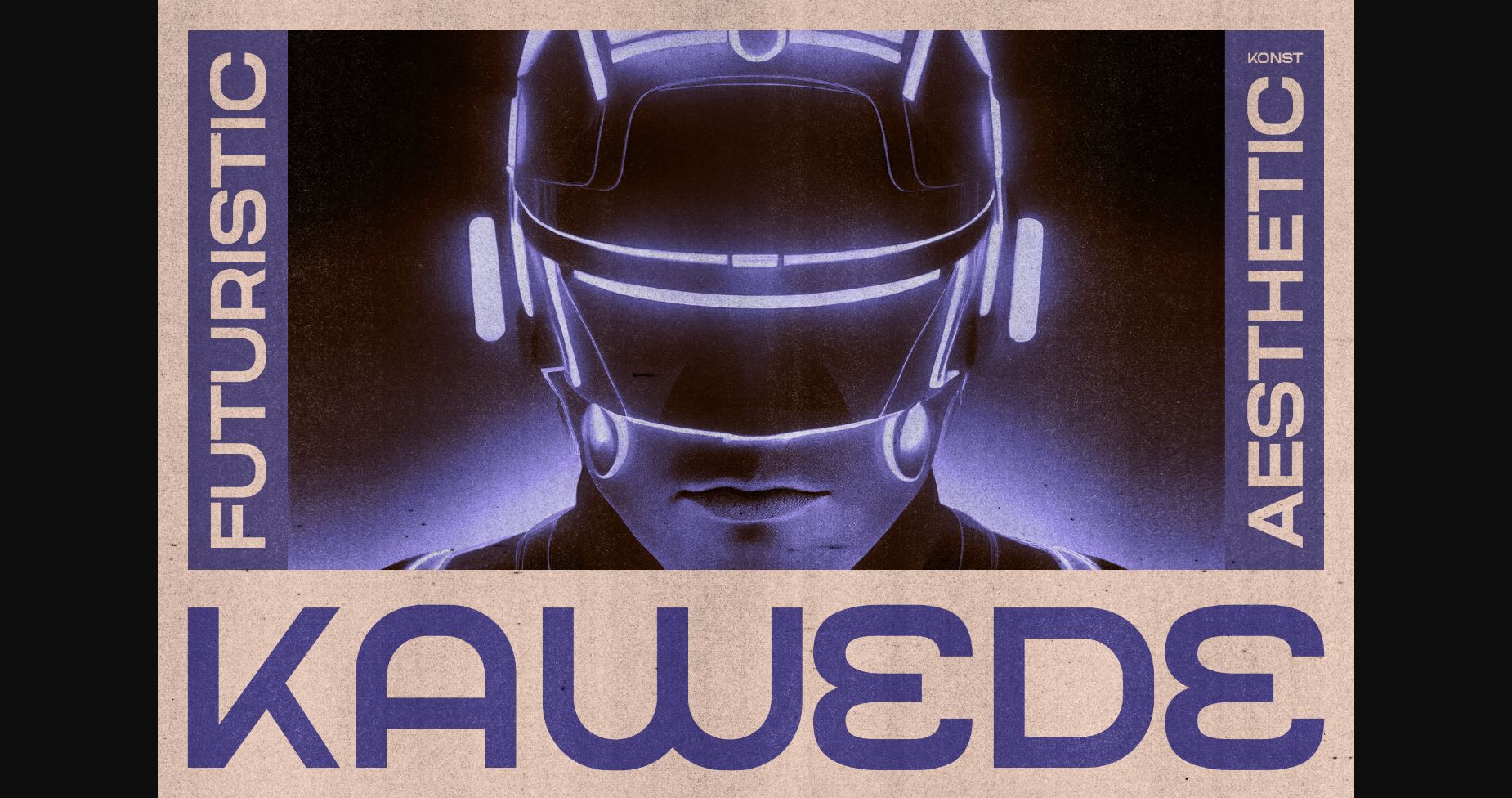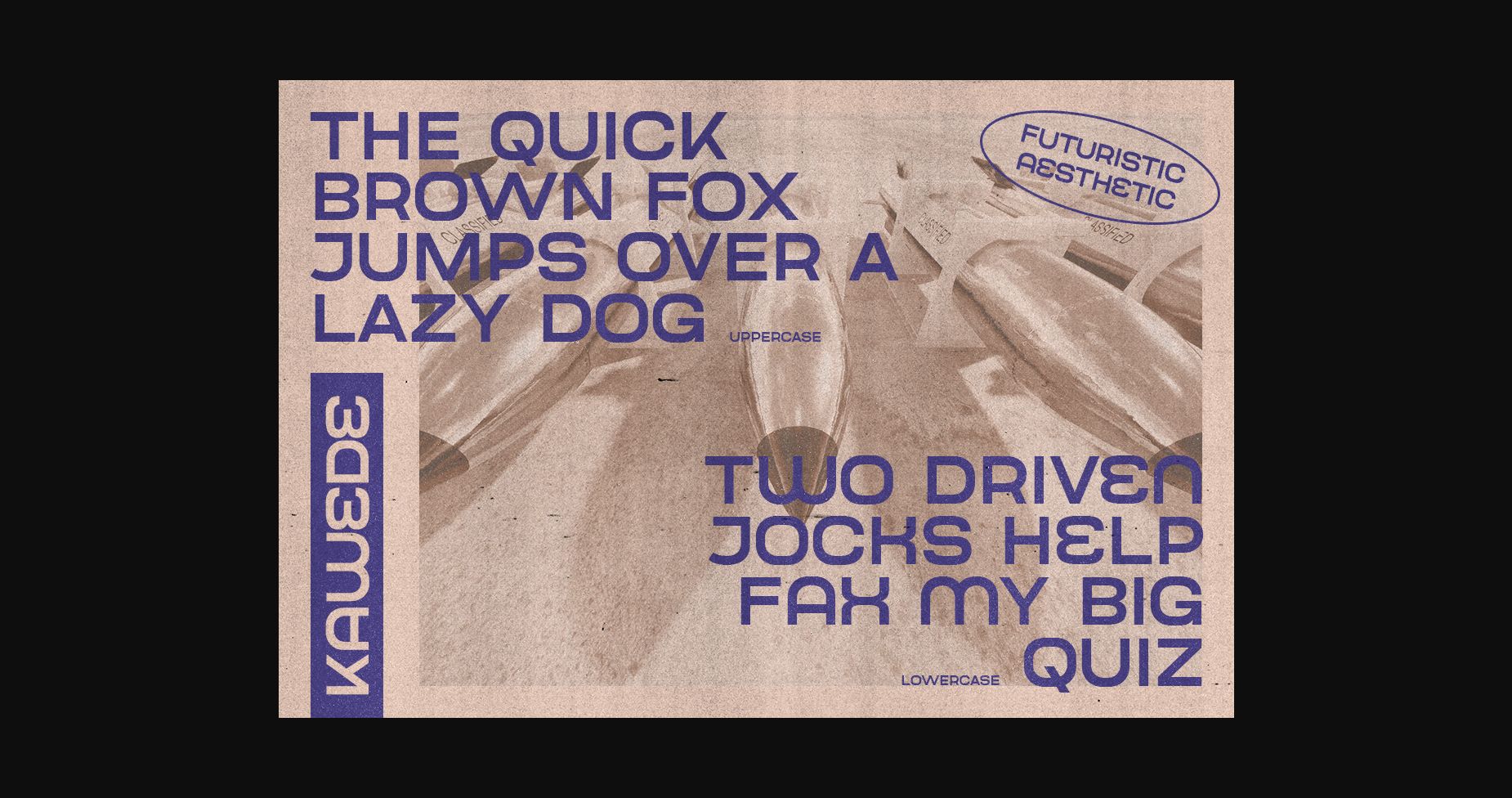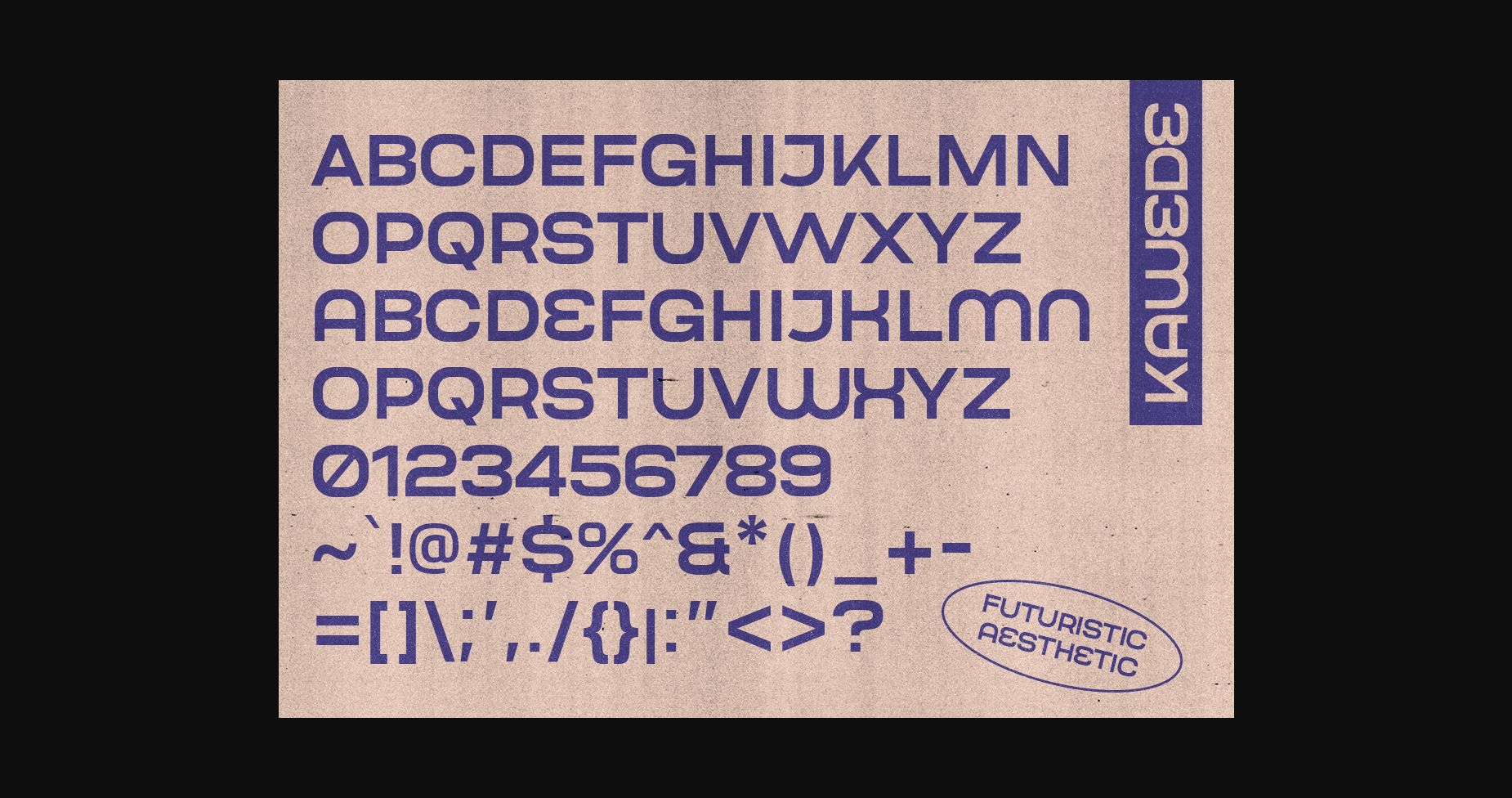
About Kawede Font
Kawede is a futuristic sans-serif font, inspired by the modern poster design with brutalism and anti-design concept trends nowadays.
Perfectly fit for a modern logo, branding, poster, cover artwork, album artwork, music projects, gaming, esport branding, movie title, serial project, and many more.